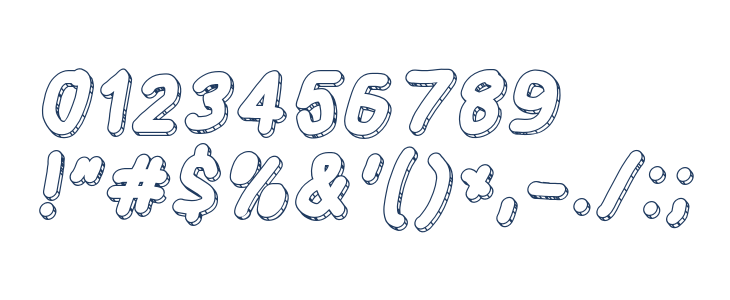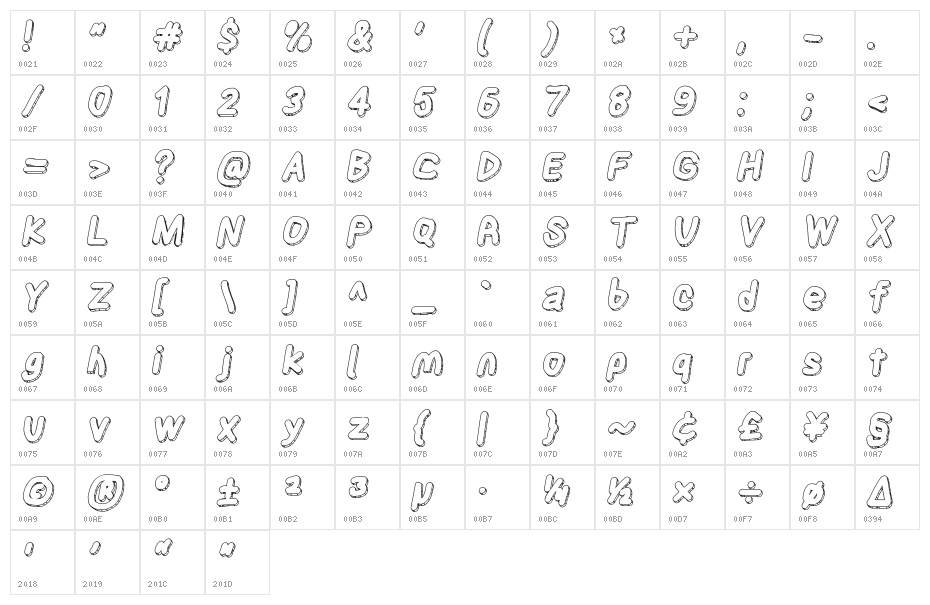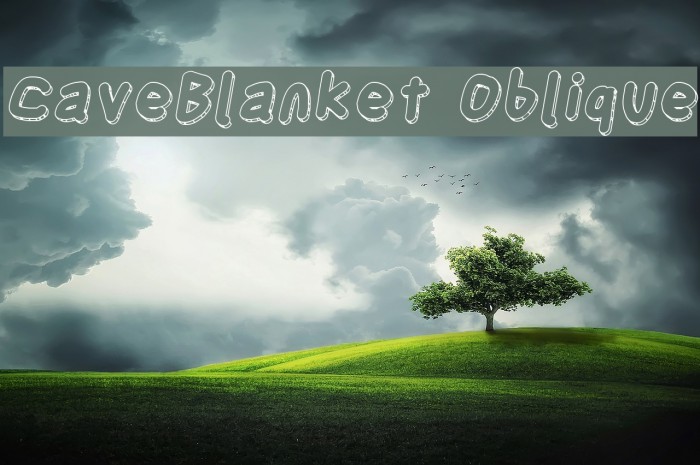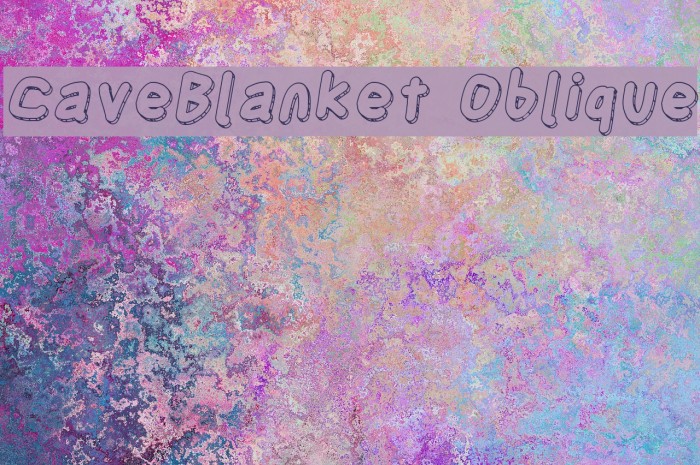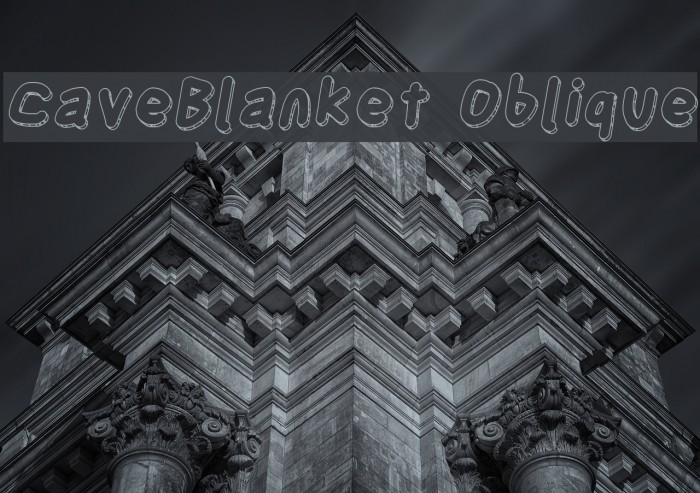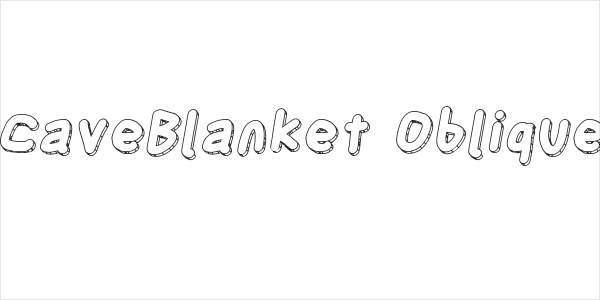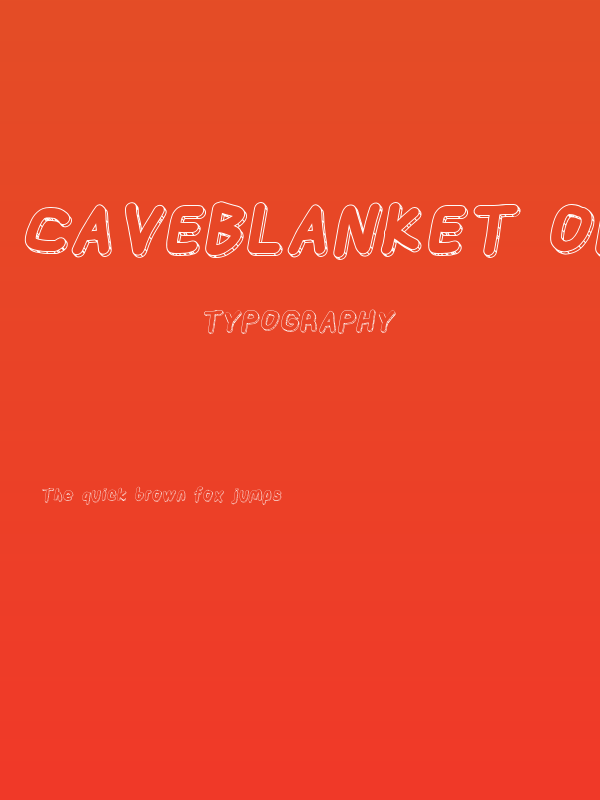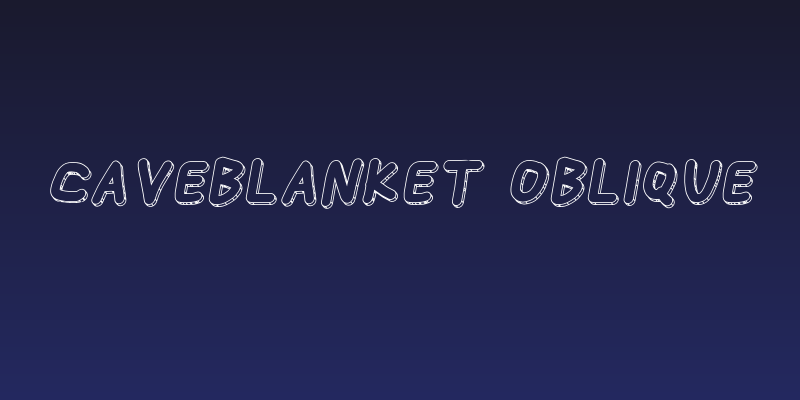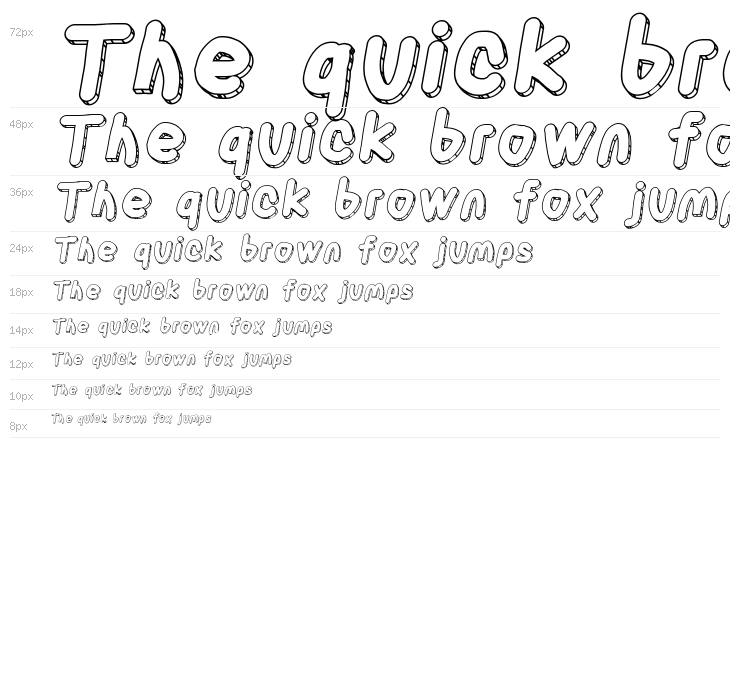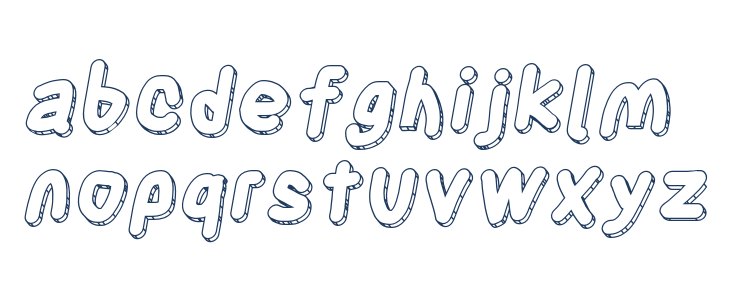
CaveBlanket Oblique Font
CaveBlanket Oblique Description
This playful and bold font features a 3D effect with a hand-drawn style, giving it a unique and whimsical appearance. The characters are outlined with a shadow that adds depth, making them stand out. The letters are slightly slanted, adding a dynamic and energetic feel. The font includes a full set of uppercase and lowercase letters, numbers, and a variety of special characters, making it versatile for different uses. Its cartoonish and informal style makes it perfect for projects that require a fun and engaging look.